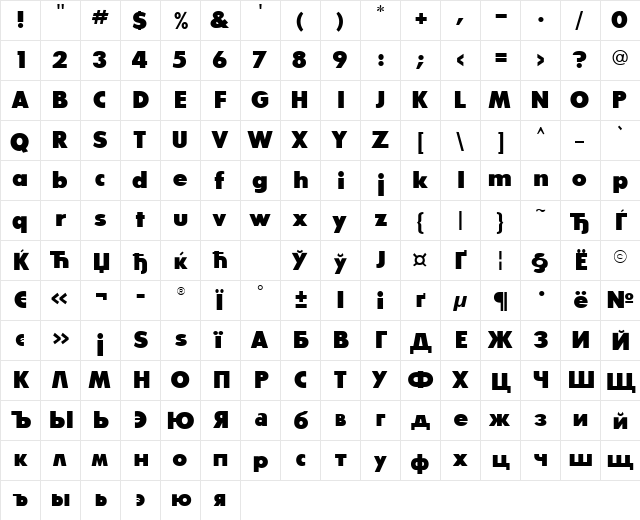
GlasnostExtrabold Regular
Design Context for GlasnostExtrabold Typeface
GlasnostExtrabold takes a measured approach to typography — its balanced proportions and neutral character make it a reliable workhorse for both digital and print work. Its bold stroke weight gives it real presence on the page.